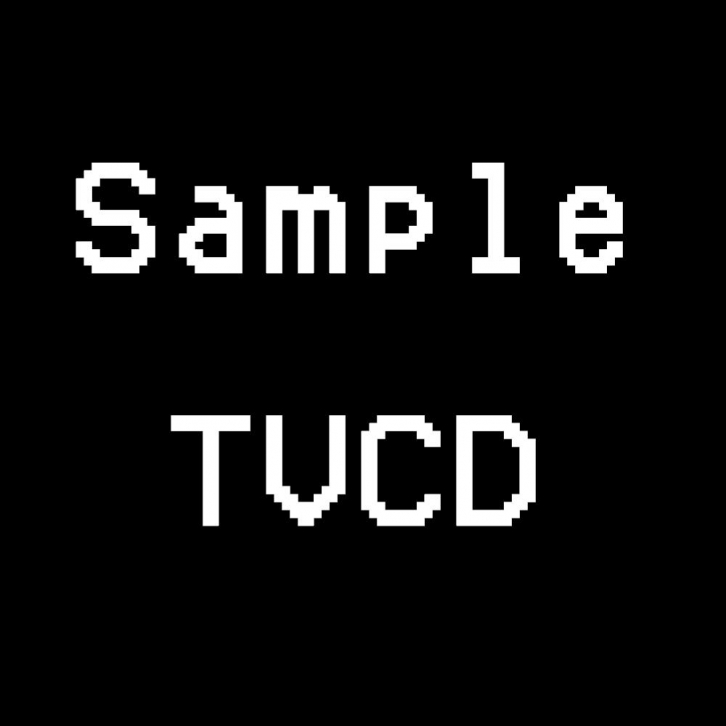
I remember when I made a font that inspired a TV set. I had so much fun with it because back then I used it for video subtitles. It kind of looked like closed captioning on an old TV set.